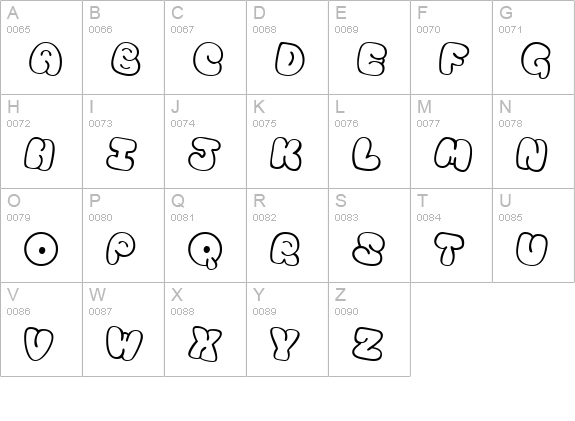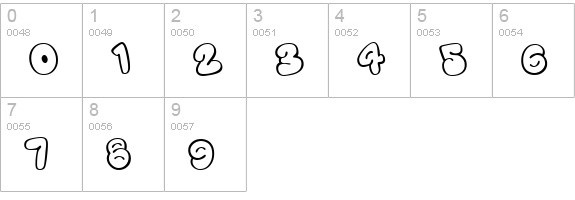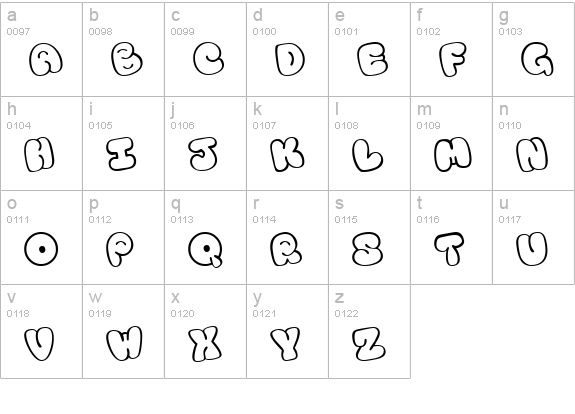
Tourist Trap Font Details
Introducing Tourist Trap, a captivating and whimsical font that will transport you to the charm and nostalgia of vintage travel. This typeface is a true gem, combining elements of boldness and playfulness to create a unique and eye-catching design. With its beautifully crafted letters, Tourist Trap captures the essence of adventure and wanderlust, making it the perfect choice for any project that seeks to evoke a sense of exploration and discovery. But what makes Tourist Trap even more appealing is that it is freely available to download at FontsMarket.com. Yes, you read that right - this stunning font can be yours without spending a dime! Whether you're a professional designer looking for a versatile typeface or a creative individual in need of a captivating font for personal projects, Tourist Trap is the ideal choice. With its wide range of characters and accents, Tourist Trap offers flexibility and versatility, making it suitable for a variety of applications. From eye-catching headlines to attention-grabbing posters, from charming branding to captivating social media graphics, this font has got you covered. The carefully designed curves and unique letterforms of Tourist Trap will instantly captivate your audience, drawing them into a world of adventure and travel. Its playful yet legible style ensures that your message will be effortlessly conveyed, while its distinctive retro charm adds a touch of nostalgia and authenticity. So why wait? Embark on a typographic journey with Tourist Trap, the font that combines beauty and freedom. Download it for free at FontsMarket.com and let your creativity soar as you explore the endless possibilities that this captivating font has to offer.